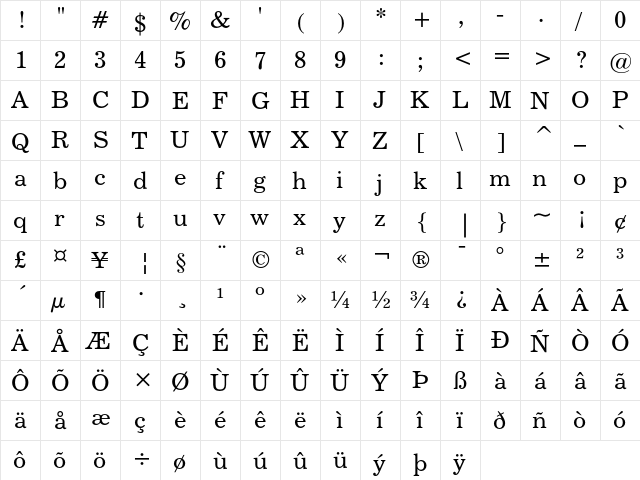
Century 731 Regular
Design Context for Century 731 Typeface
Century 731 offers clean, dependable letterforms without strong stylistic allegiance, making it a practical choice for designers who need flexibility.
Pro Tip: Use Century 731 in both headline and body roles to test its range before committing to a single application.